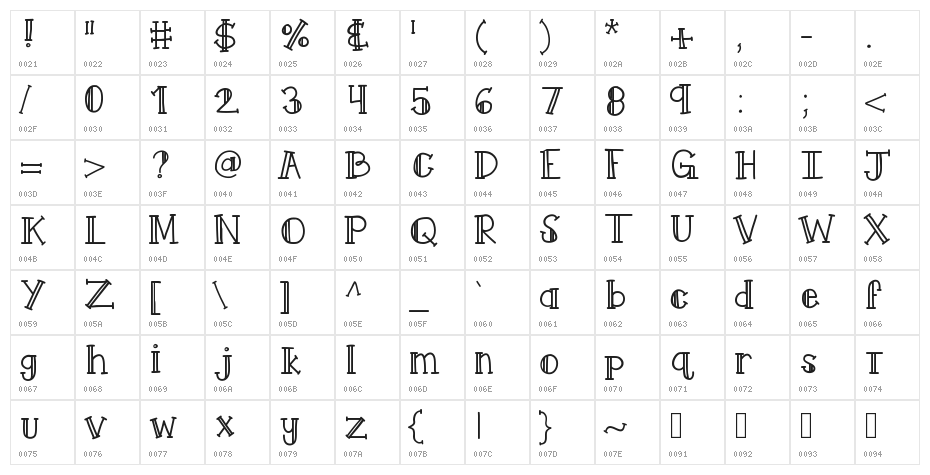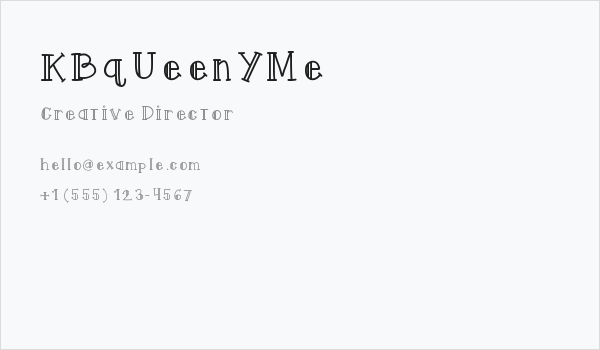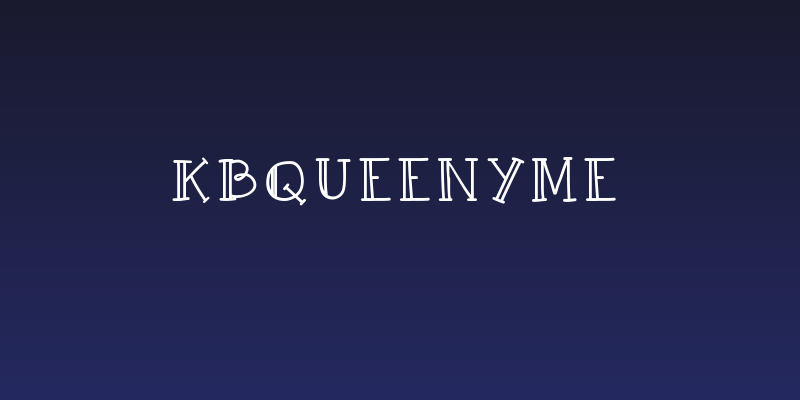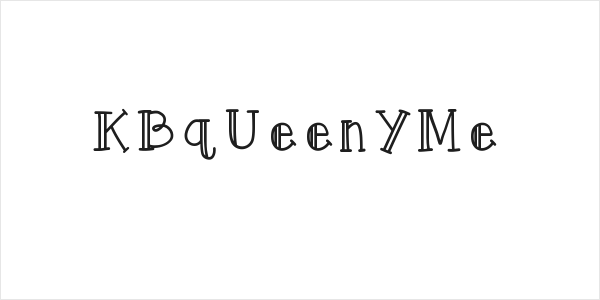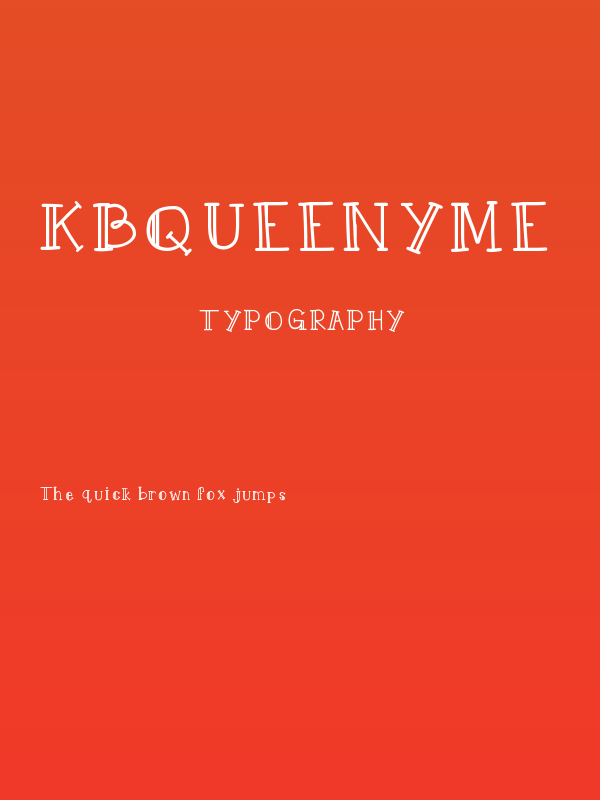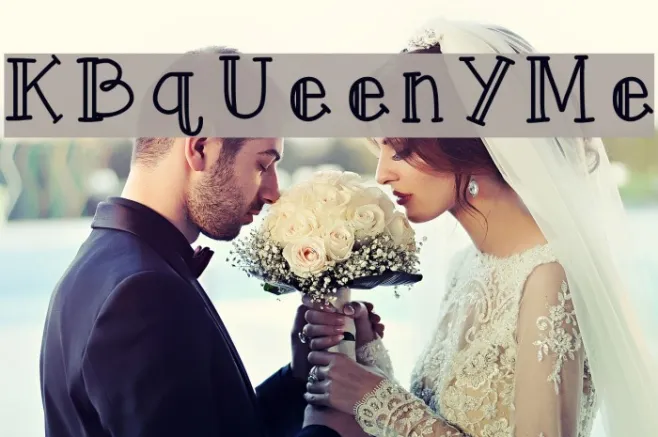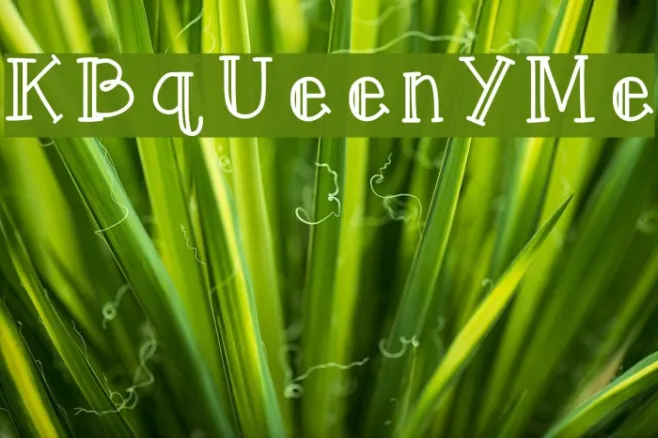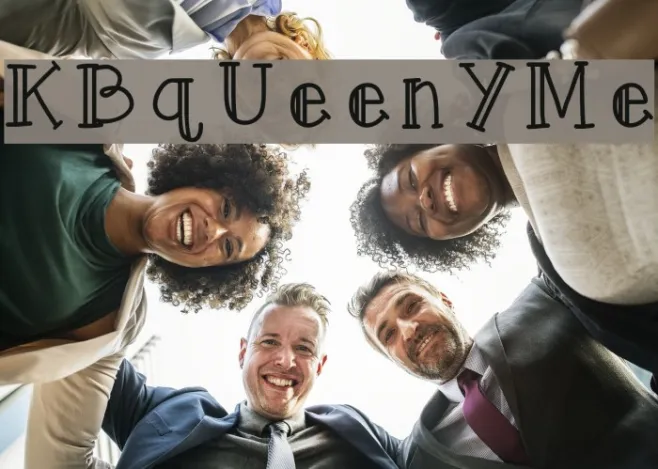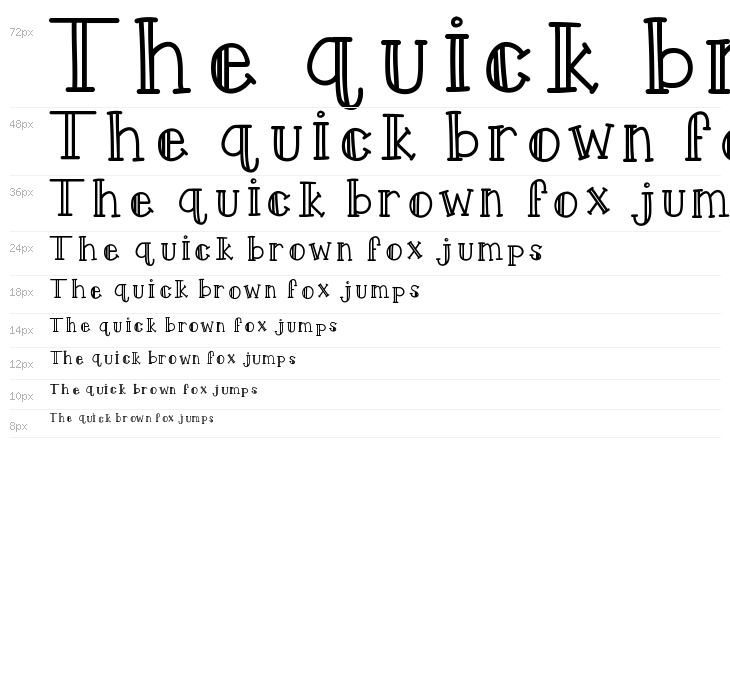
KBqUeenYMe Font
KBqUeenYMe Description
This font exhibits a playful and decorative style, characterized by its unique and whimsical design elements. Each character features a combination of thick and thin strokes, creating a dynamic and engaging visual effect. The letters are adorned with subtle serifs and decorative loops, adding a touch of elegance and charm. The numerals and special characters maintain the same playful aesthetic, ensuring consistency across all glyphs. This font's distinct personality makes it suitable for creative and artistic projects where a touch of whimsy is desired.
| Proposed Projects | Ideal for children's books, creative posters, playful branding, and artistic invitations. |